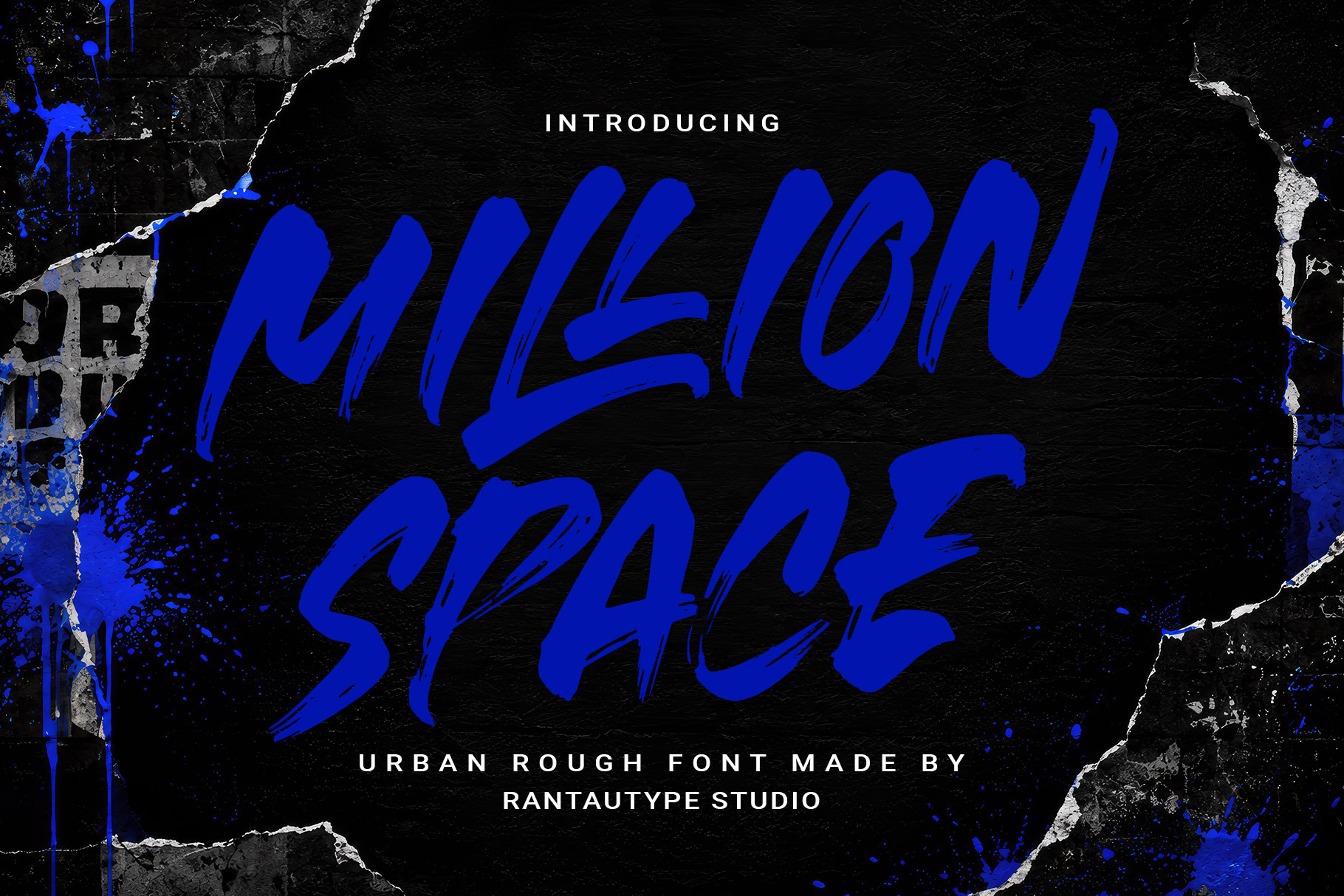
Million Space Urban Rough Font
Million space is a bold, high-energy brush font that captures the raw spirit of urban creativity and modern street culture. Designed with expressive hand-painted strokes, this typeface combines the freedom of graffiti-inspired lettering with the confidence of contemporary branding. Million space is a perfectly choice for any creative endeavor, creating, modern, lifestyle design such as logotype, title, cover, branding, display and magazine, social media posts, advertisements, printed quotes, product packaging, corporate brand, product designs, labels, photography, watermarks, special events and any other project with urban touch.
Standart Glyphs
Numberial and Functional
Alternate and ligature